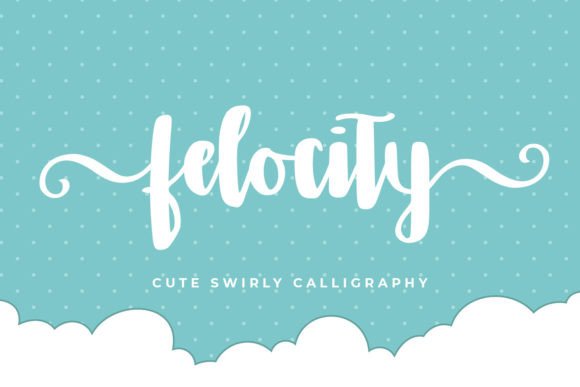
Journey into the realm of elegance and sophistication with Felocity Font, a captivating script font that will transform your creative endeavors into masterpieces. Allow your imagination to dance freely as you immerse yourself in the world of Felocity, a font family crafted with meticulous attention to detail, boasting a personality that is both timeless and contemporary.
Embrace the artistry of Felocity, a font that effortlessly blends the allure of handwritten elegance with a modern, digital touch. Each letterform is a work of art, dancing across the page with a graceful fluidity that commands attention. Whether you're a seasoned designer or just starting your creative journey, Felocity will elevate your projects to new heights of sophistication.
With its inherent charm and versatility, Felocity is the perfect choice for a wide range of design projects. From wedding invitations and social media posts to branding and packaging, Felocity effortlessly adapts to your vision, adding a touch of refinement and exclusivity to every creation.
Indulge in the beauty of Felocity, a font that speaks to the heart and soul. Its delicate strokes and sweeping curves evoke a sense of romance and nostalgia, while its crisp, clean lines ensure readability and clarity. Prepare to be mesmerized by the captivating power of Felocity, a font that will leave an unforgettable impression on your audience.
Discover the endless possibilities of Felocity, a versatile font that empowers you to express your unique style. With its ability to transform ordinary text into captivating works of art, Felocity is the perfect choice for designers, crafters, and creatives who seek to make a statement.
Step into a world of creativity and inspiration with Felocity Font, a font that will ignite your imagination and elevate your designs to new heights of excellence. Unleash the power of Felocity today and experience the joy of creating truly exceptional work.